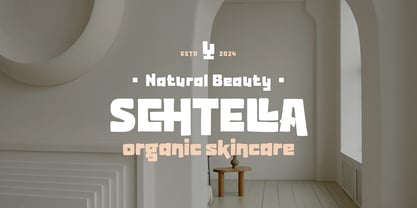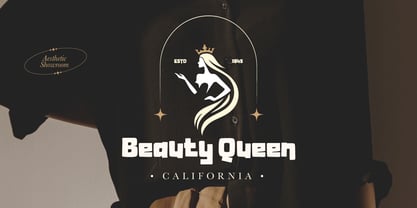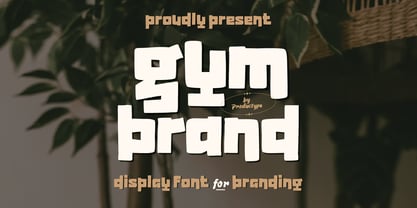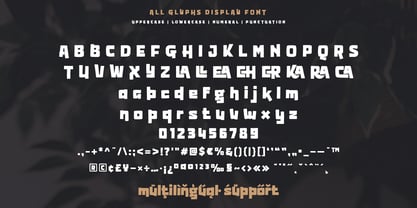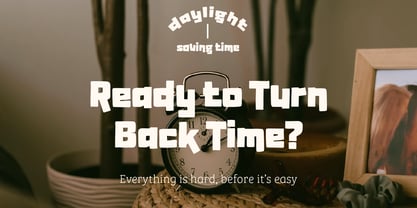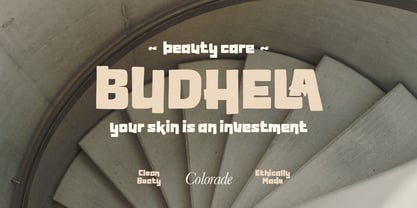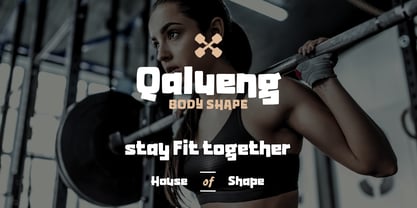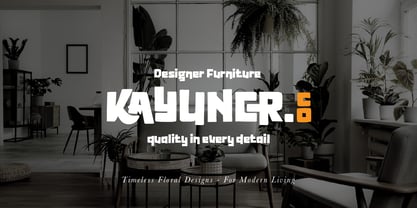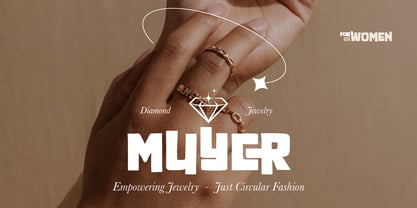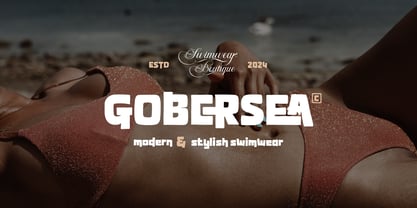
Gymbrand
von Product Type
Die Schriftfamilie Gymbrand wurde von Lita Faolina entworfen und von Product Type veröffentlicht. Gymbrand enthält 1 Stile. Mehr über diese Familie
Introducing Gymbrand, a striking display font designed to bring power and professionalism to your branding projects. With its clean lines and bold presence, Gymbrand exudes confidence and modernity, making it the perfect choice for businesses and brands that want to stand out.
Key Features:
• Sleek and powerful letterforms ideal for professional branding
• Versatile design suitable for logos, headlines, and advertising
• Perfect balance of modern style and timeless appeal
Ideal Uses:
✓ Fitness and gym branding
✓ Sportswear packaging and labels
✓ Bold advertising campaigns
✓ Corporate logos and identities
✓ Magazine headlines and posters
Gymbrand is more than just a font—it’s a statement of strength and innovation. Whether you’re crafting a fitness brand, designing standout advertising, or developing a modern corporate identity, Gymbrand ensures your work makes a bold and lasting impression.
Designer: Lita Faolina
Foundry: Product Type